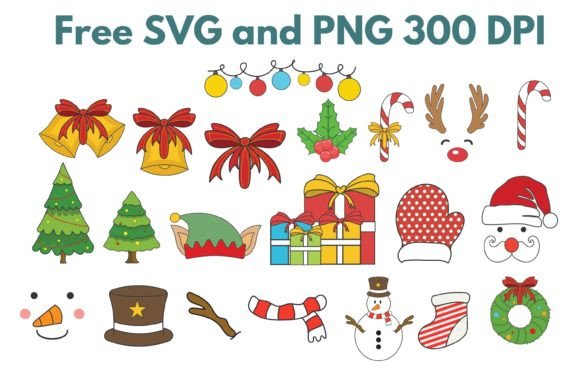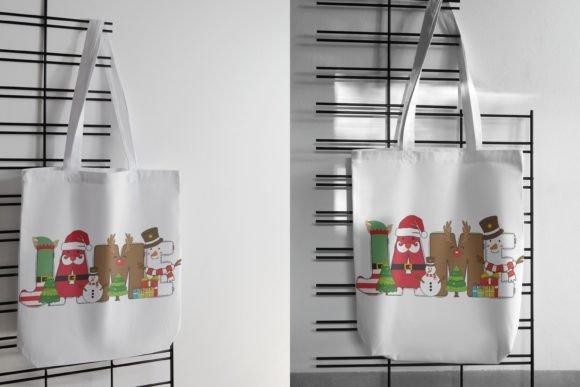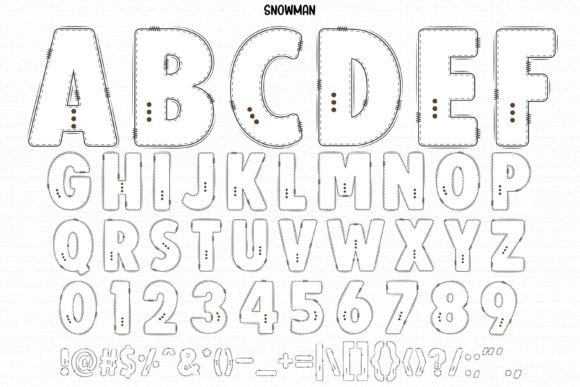
Merry Christmas Font
Merry Christmas is a cute and festive color font. It will look amazing on all your Christmas-themed designs, shirts, crafts, and cards and will instantly enhance your projects!